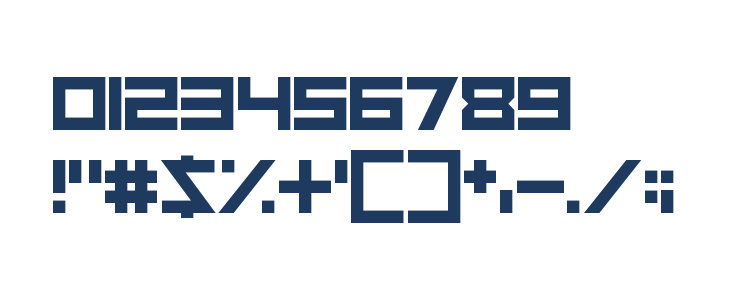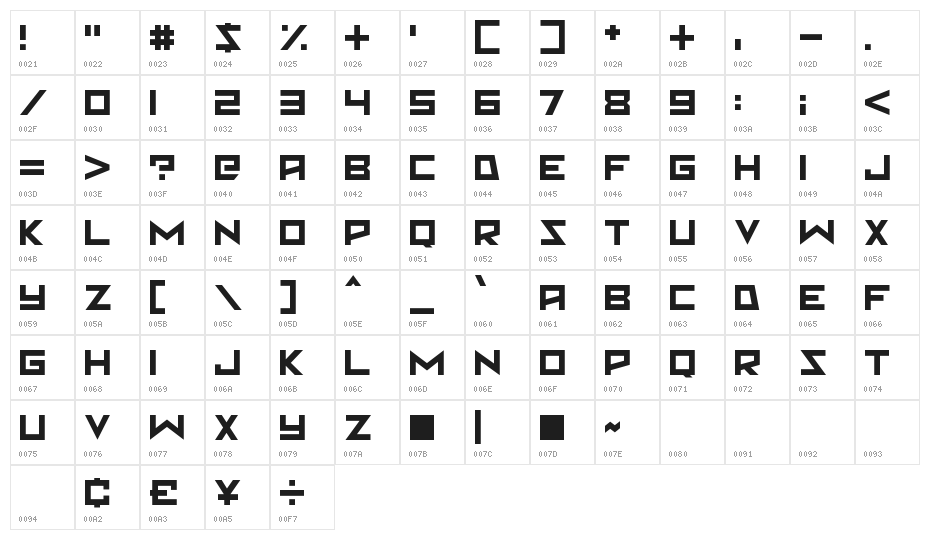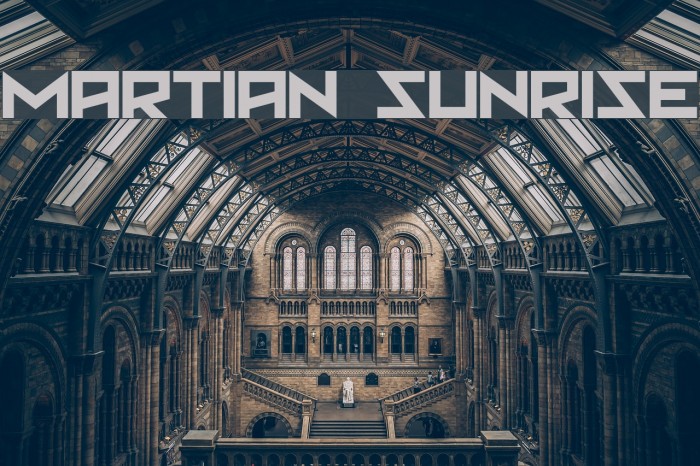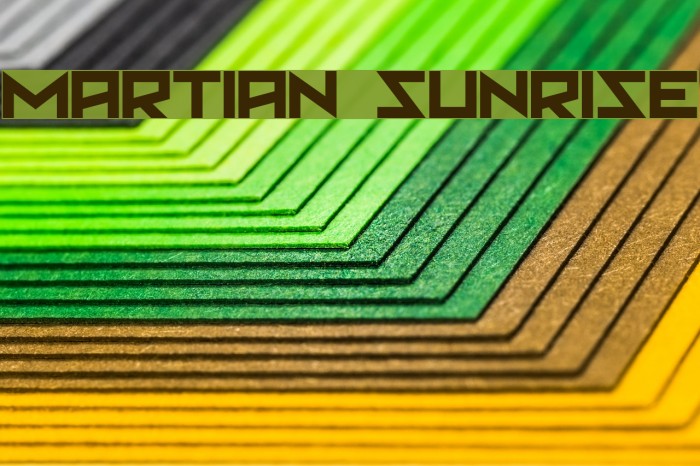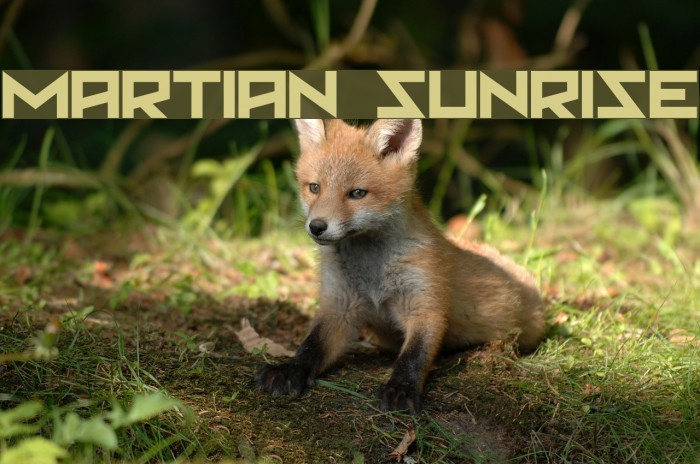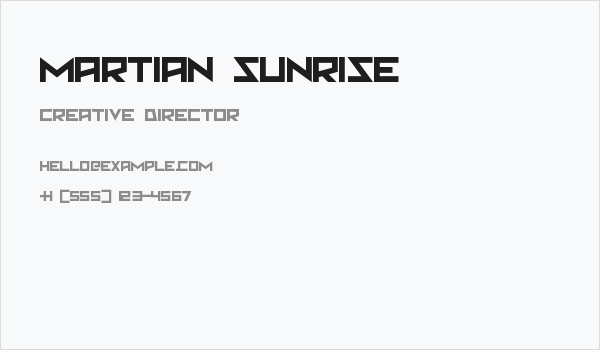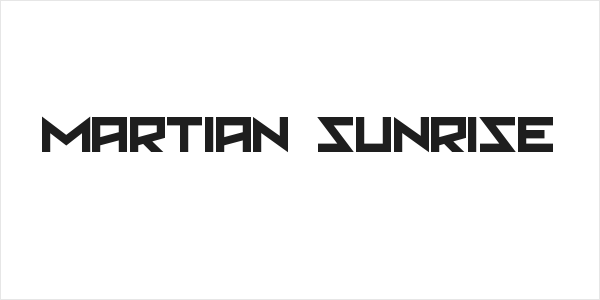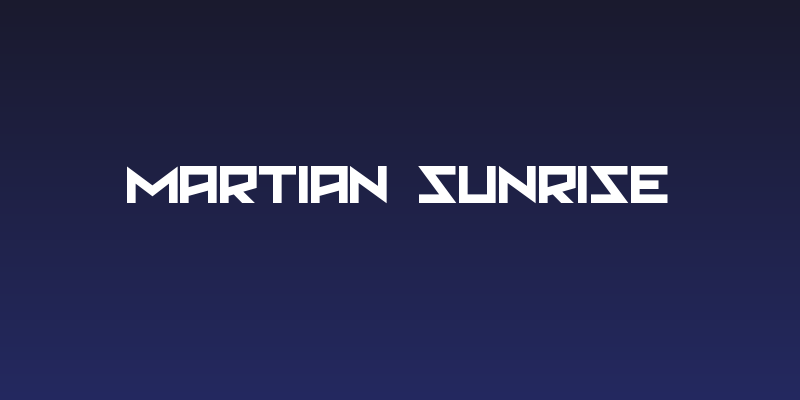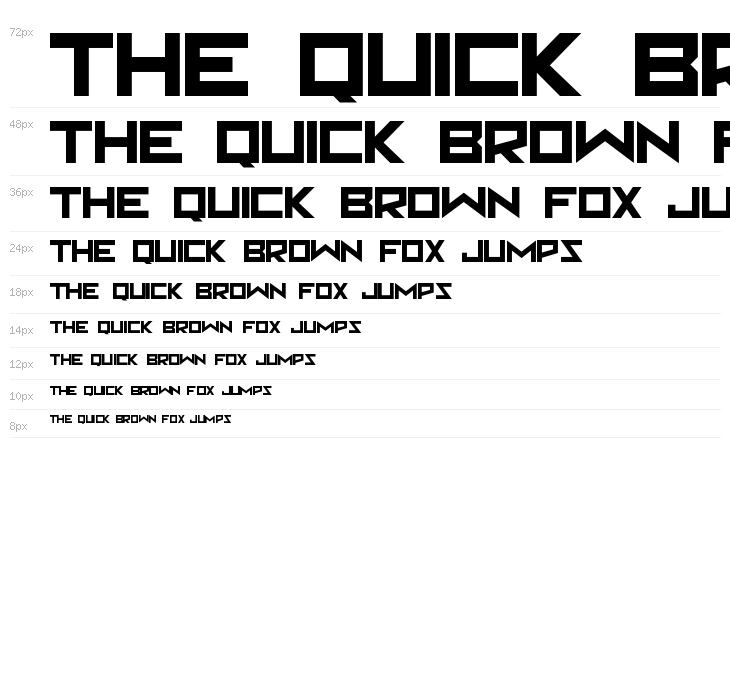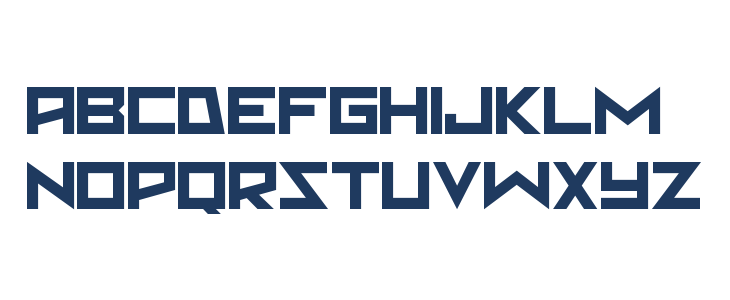
Martian Sunrise Font
Martian Sunrise Description
This font features a bold, futuristic design with sharp angles and geometric shapes. Each character is constructed with a consistent thickness, giving it a uniform appearance. The uppercase letters are particularly striking, with a blocky, almost robotic aesthetic. The lowercase letters maintain this style, ensuring readability while preserving the unique design. Numbers and special characters are crafted with the same attention to detail, making them suitable for a variety of applications. The overall look is modern and edgy, perfect for projects that require a strong visual impact.
| Proposed Projects | Ideal for sci-fi themed designs, video game interfaces, tech branding, and futuristic posters. |